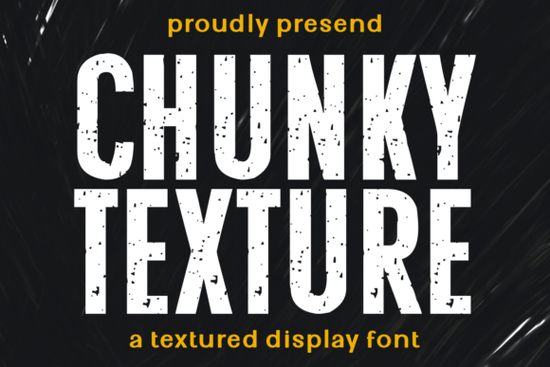
When you need a typeface that commands attention without shouting, finding the right balance between ruggedness and readability is key. The Chunky Texture Font offers a solution for designers looking to add grit and character to their projects. This grunge-style typeface is built for those who want an unabashedly masculine look, perfect for brands that value authenticity over polish. Whether you are creating logos for a barbershop or designing packaging for a craft coffee brand, this tool helps you establish a strong visual identity immediately.
What kind of projects suit this rugged style?
Distressed typography works best when the subject matter matches the aesthetic. You wouldn't use a grunge font for a wedding invitation, but it shines in environments that feel industrial or urban. Think about streetwear labels, gym apparel, or automotive posters. The eroded edges of the letters suggest history and durability. If you are working on a project that needs to feel established and tough, this style fits naturally.
For example, imagine printing this on a tote bag mockup. The texture adds depth that flat colors cannot achieve. It transforms simple merchandise into something that looks like it has been part of a subculture for years. Similarly, outdoor signage benefits from this bold lettering because it remains legible even when weathered. If you are exploring different vibes, you might also browse retro script options to see how a cursive style compares, but for raw impact, textured display fonts are often the superior choice.
How do you pair distressed typefaces effectively?
Using a bold, textured font requires careful pairing. Since the letters themselves are busy with noise and grit, your secondary fonts should be clean. A simple sans-serif works well for body text or subtitles. This contrast ensures that the viewer's eye knows where to look first. You want the Chunky Texture style to act as the headline hero while supporting text remains neutral.
Spacing is another critical factor. Because the letters have irregular edges, kerning might need adjustment to prevent them from looking too crowded. Give the characters room to breathe. When you are organizing your assets, it helps to access designer font resources that offer tips on hierarchy. Proper spacing ensures that the rugged edge doesn't turn into visual clutter. Remember, the goal is evocative design, not confusion.
Where can you find similar vintage industrial options?
Is this font suitable for small business branding?
Yes, small businesses often benefit from distinct typography that sets them apart from competitors using standard system fonts. A coffee shop using this typeface on their cups creates an instant association with artisanal quality. A mechanic shop using it on their business cards signals reliability and strength. The key is consistency. Use the font across all touchpoints, from social media graphics to physical signage.
When implementing this for a client, ensure you have the correct licensing for commercial use. Always check the foundry's terms before selling products featuring the typeface. If you need more inspiration on how to apply these styles, you can check out Laguna Tropic styles for comparison on how different textures affect brand perception. The right font acts as a signature, making your work recognizable even without a logo mark.
Practical Checklist for Using Textured Fonts
Before finalizing your design, run through these steps to ensure quality:
- Check Legibility: View the design at small sizes to ensure the texture doesn't disappear.
- Contrast Test: Place the text over both light and dark backgrounds to verify visibility.
- Pairing Review: Ensure your secondary font is simple enough to balance the bold header.
- Licensing Verify: Confirm your license allows for the intended commercial use, such as print-on-demand.
- Export Settings: Save files in high resolution to preserve the distressed details without pixelation.
By following these guidelines, you can integrate bold typography into your workflow confidently. The right typeface does the heavy lifting for your brand identity, allowing you to focus on layout and composition. Start by testing the font on a simple mockup to see how the texture interacts with your chosen colors.